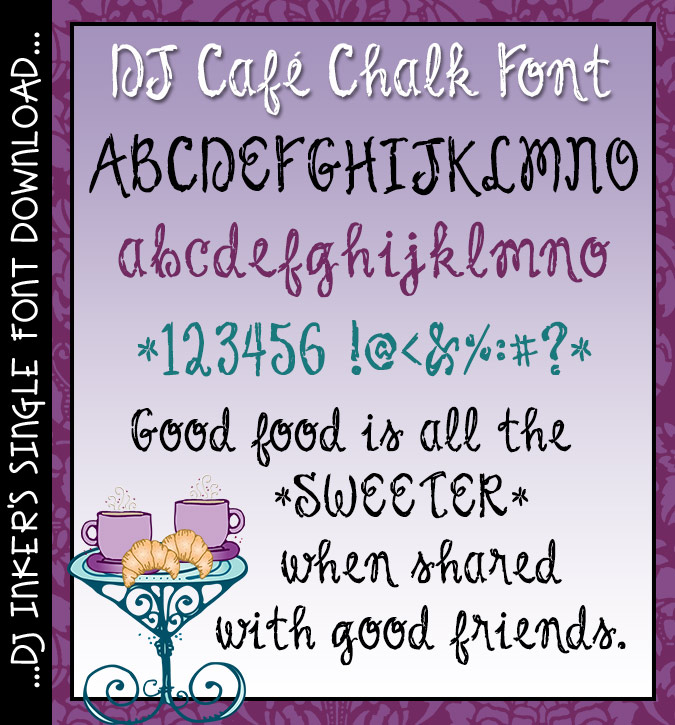
DJ Café Chalk Cursive Font Download
Order-up a smile with our charming DJ Café Chalk font.
This hand-written cursive lettering will add a little something sweet to
your creations, in that soft chalkboard texture you love. Taste it on projects
at home, school or play. Try a dark or light background... it can go either
way. :)